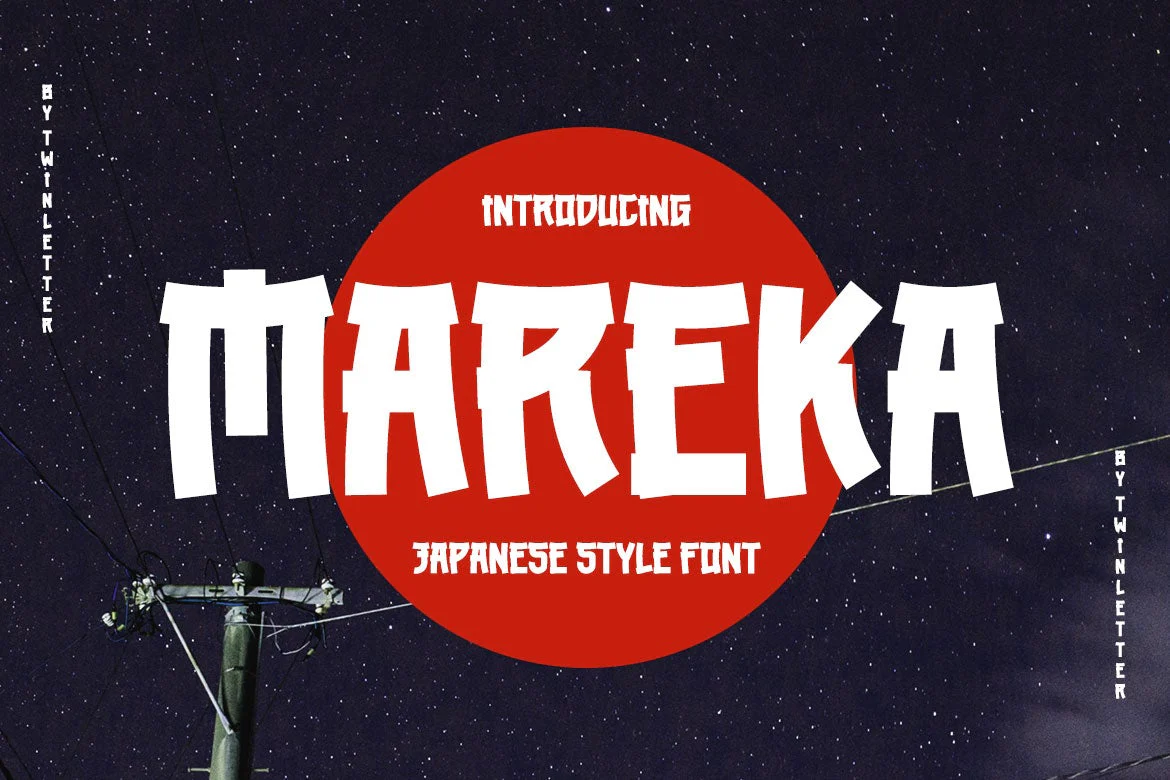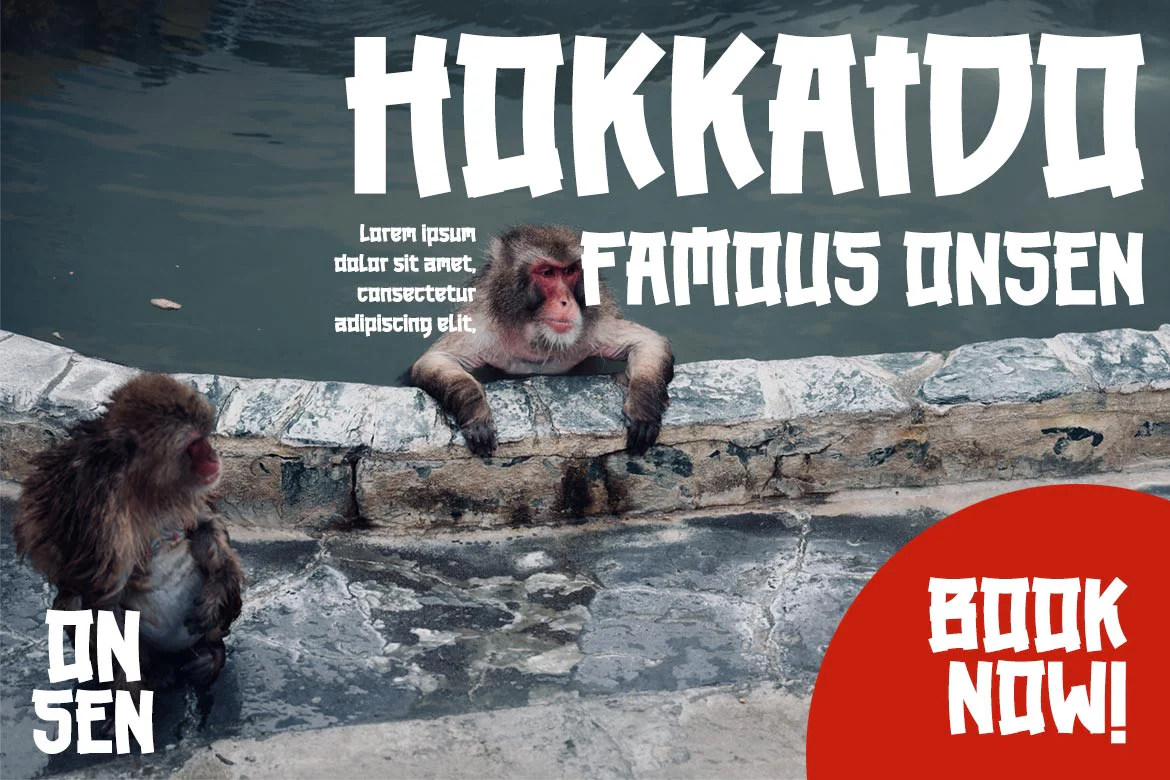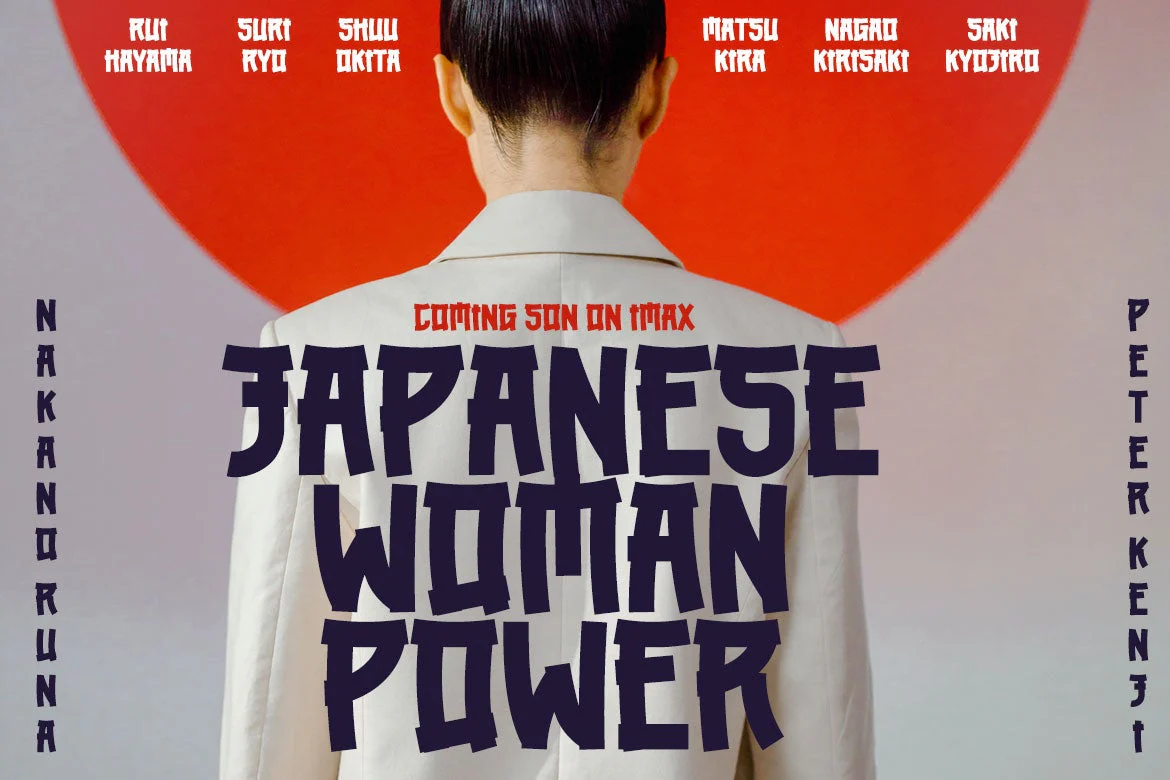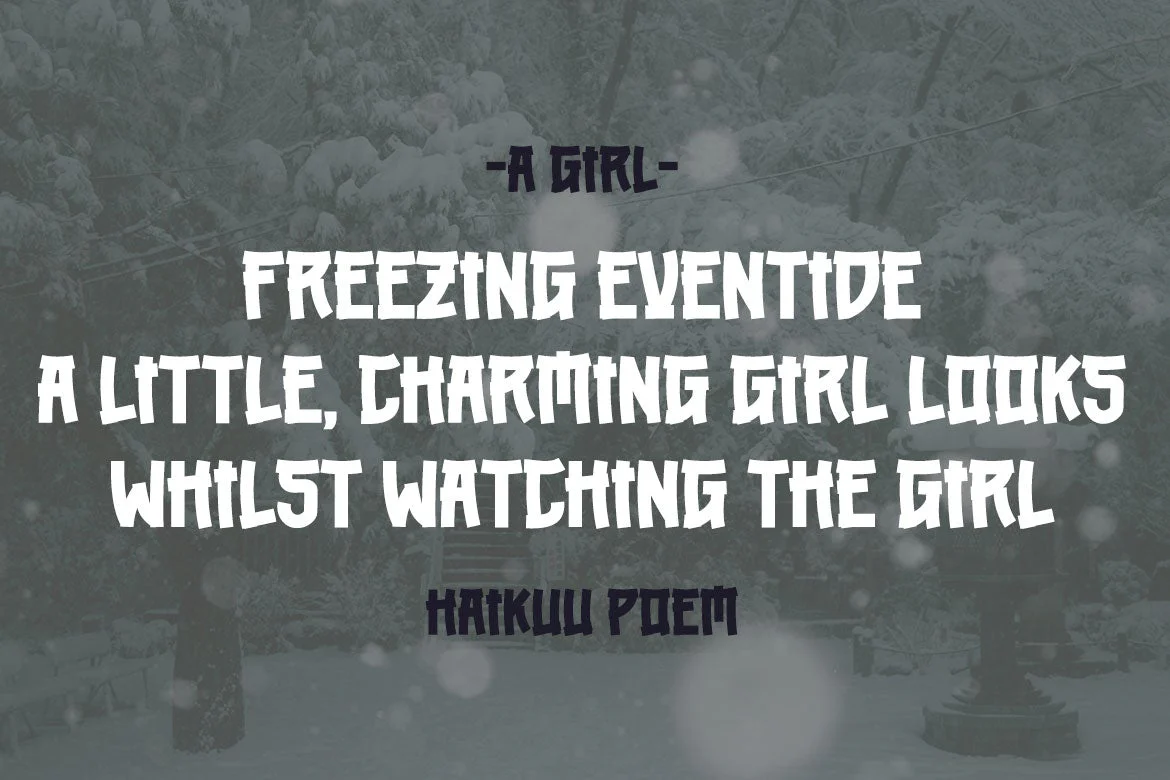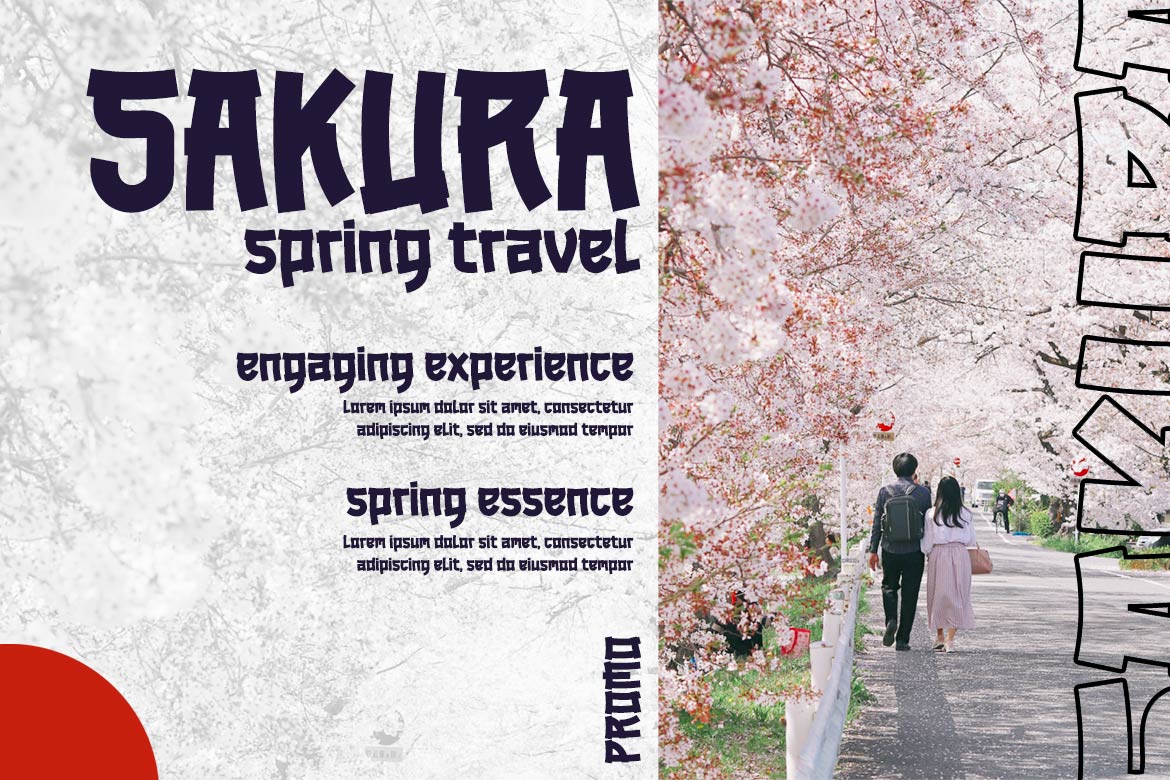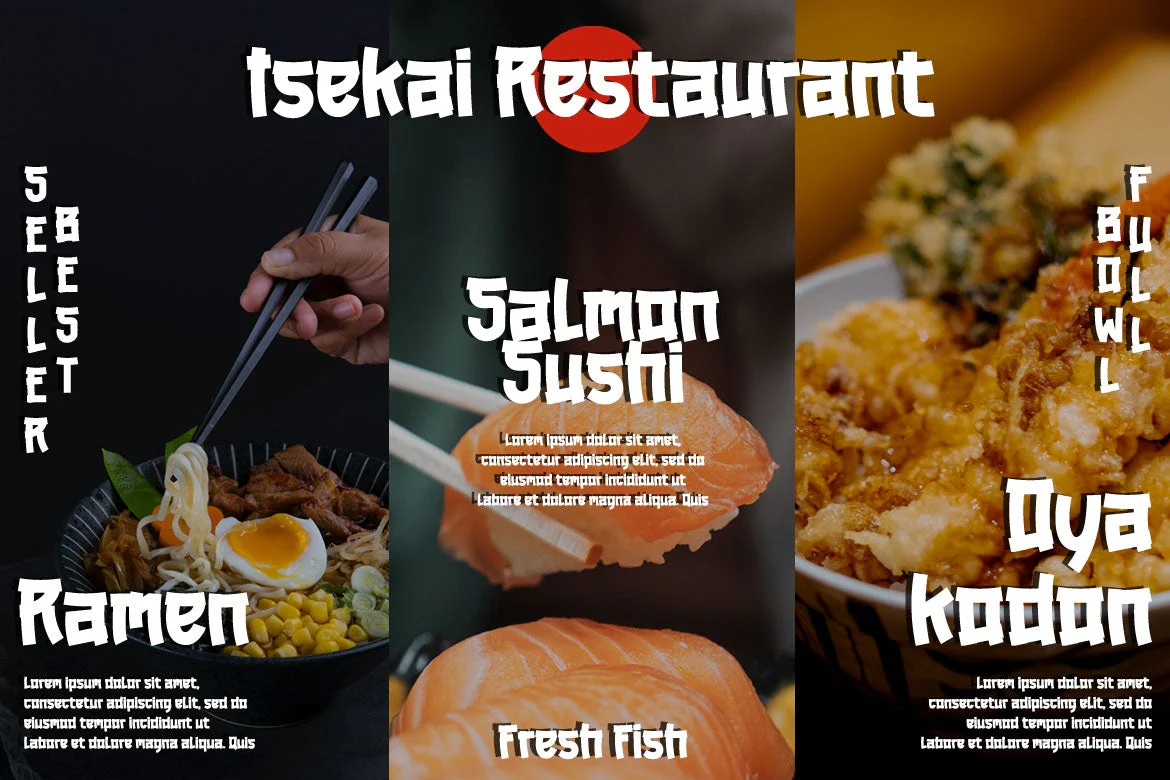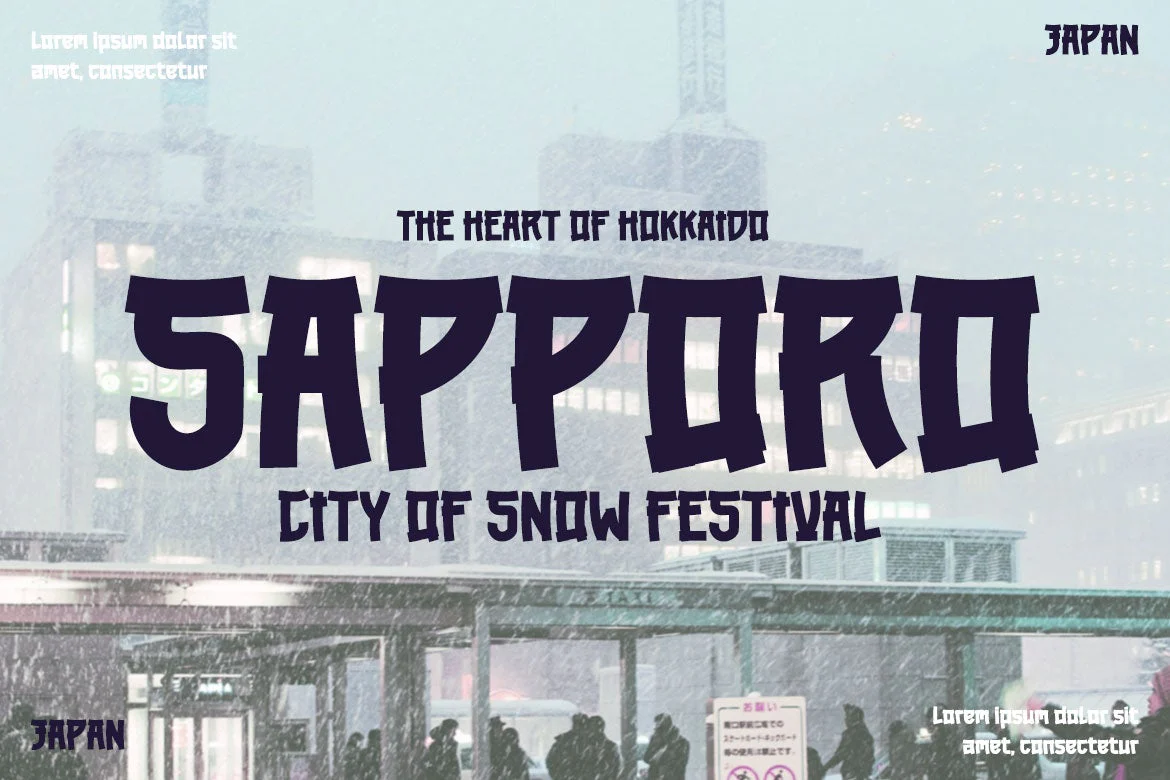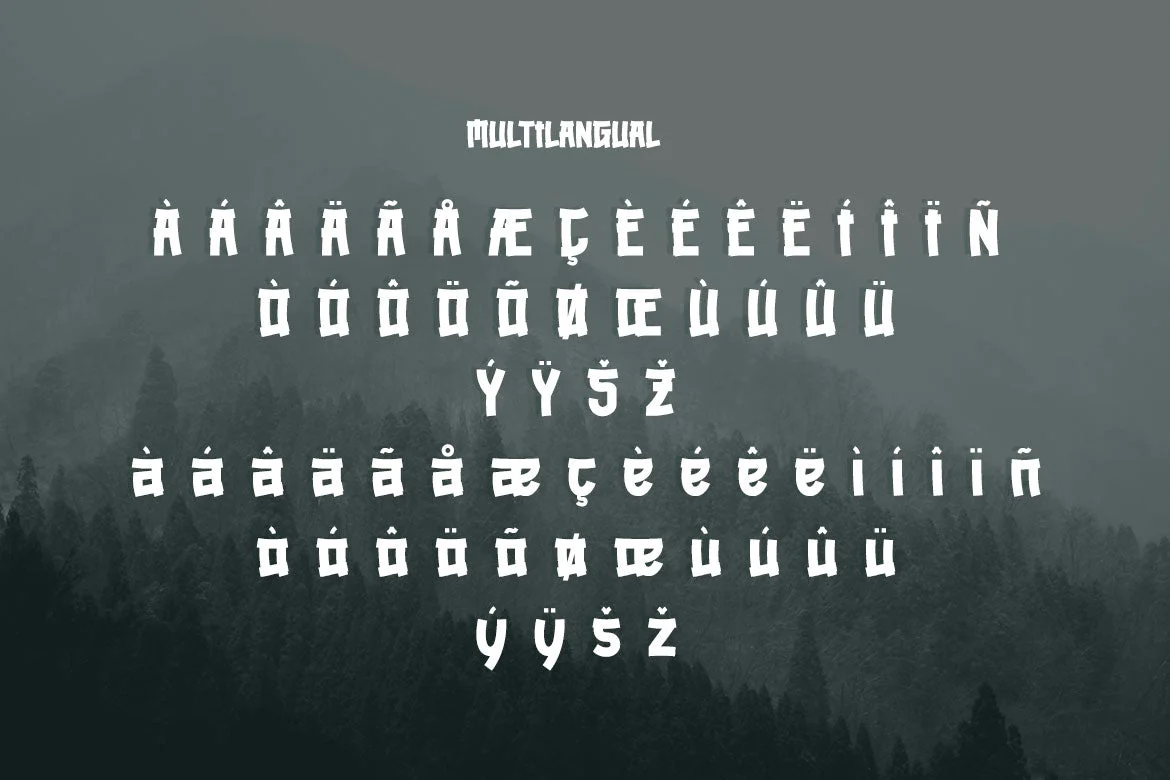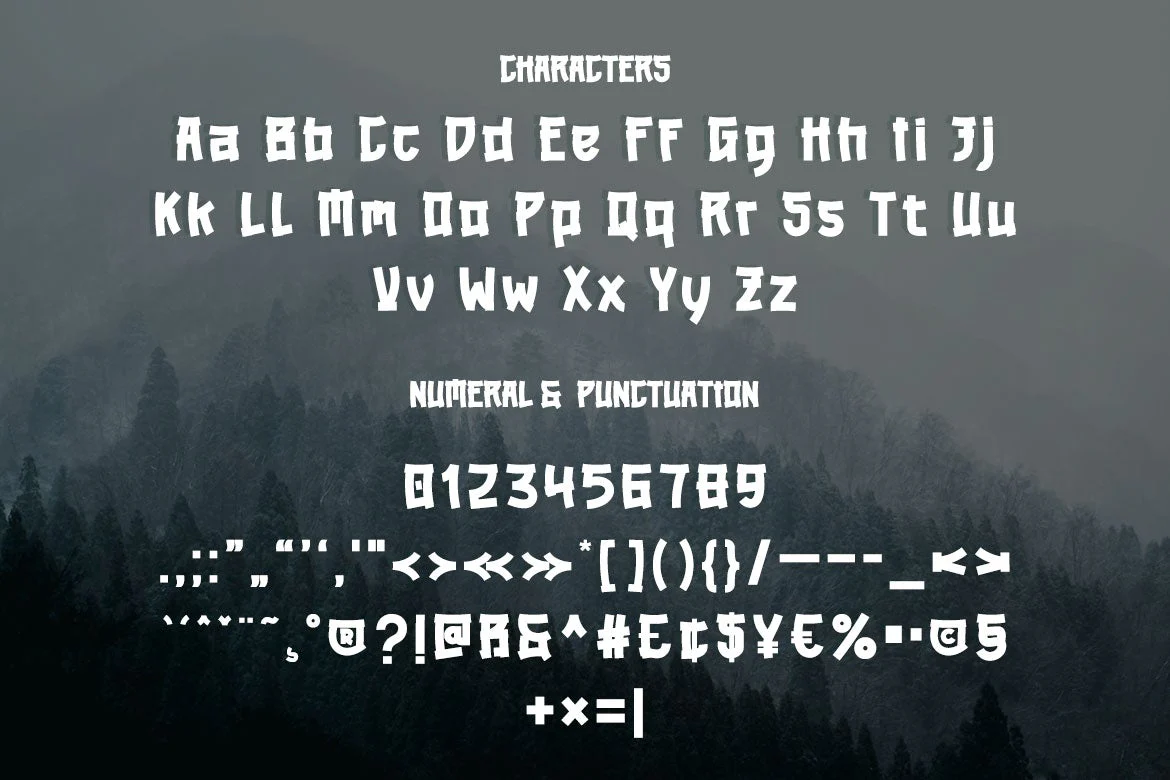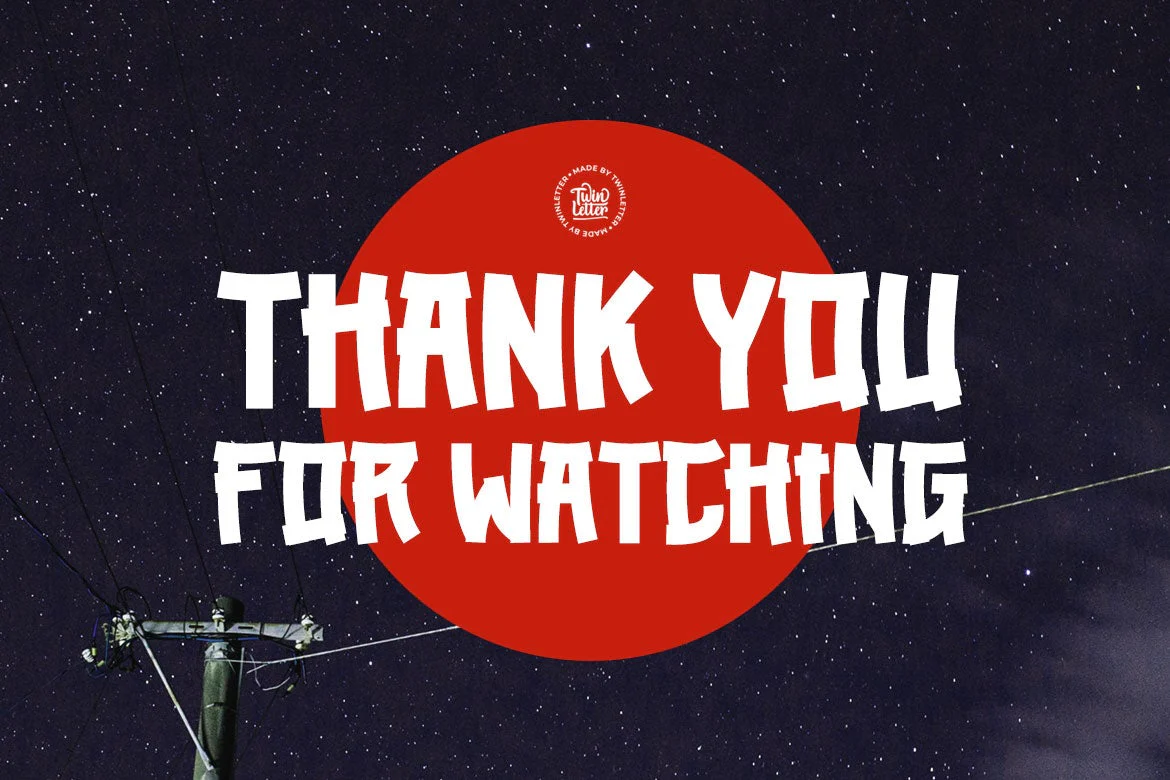
MAREKA - Japanese style font
Mareka, our newest font, is now released.
Beautiful, tidy, and elegant font with a distinctive shape. If you employ this typeface, your once-good project will become something truly unique. This typeface is appropriate since the shape of each letter may be used in a variety of ways, including serious, relaxed, and natural.
Because everyone does not necessarily understand Japanese letters, we supply fonts with letters that can be utilized for your project. We produced this display font with a Japanese theme or an Asian font, which we designed to fulfill the needs of your Japanese-themed project. Of sure, your initiative will be understood by people all around the world.
Logotypes, food banners, branding, brochure, posters, movie titles, book titles, quotes, and more may all benefit from this font.
Of course, using this font in your various design projects will make them excellent and outstanding; many viewers are drawn to the striking and unusual graphic display.